lo-ol Type Foundry
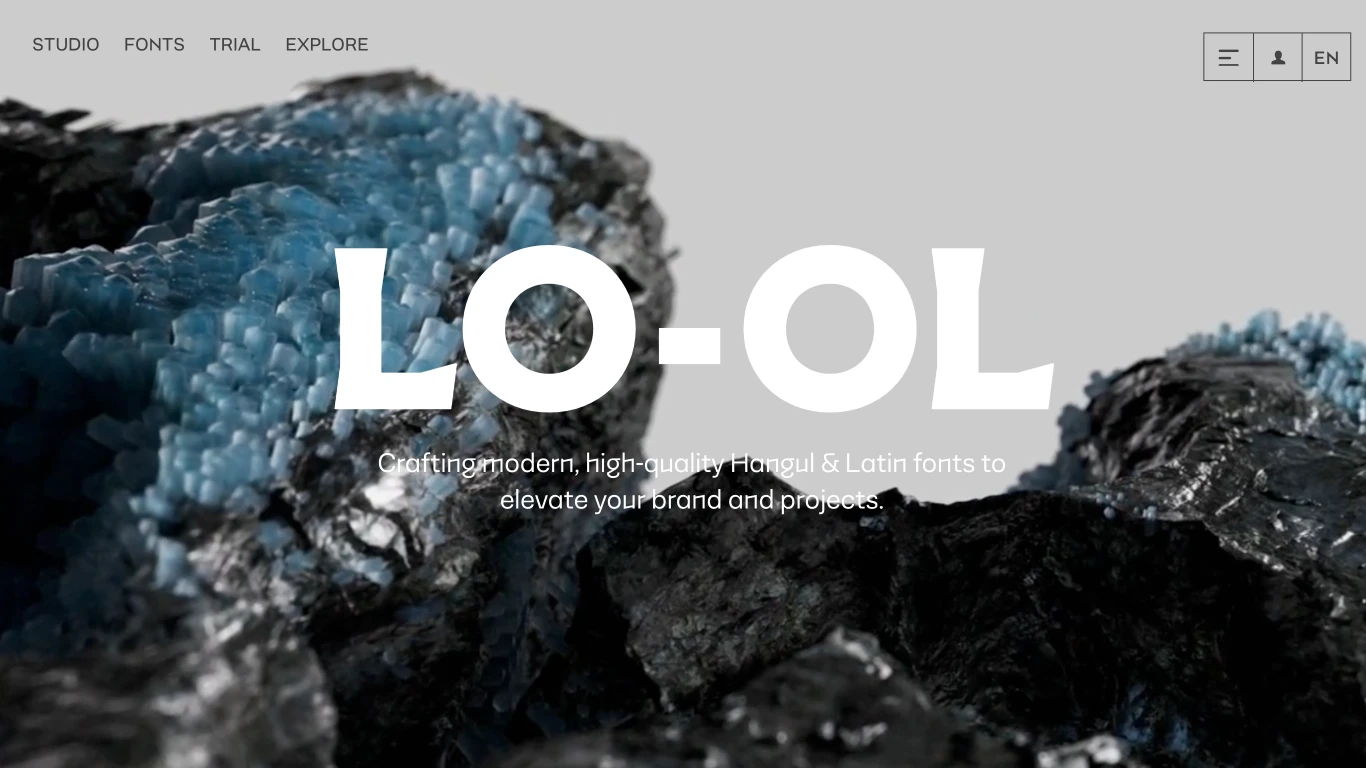
lo-ol is a type foundry and design studio founded by Noheul Lee and Loris Roussel, operating between Geneva, Switzerland, and Seoul, South Korea. Established with a focus on bridging Latin and Hangul typography, lo-ol specializes in crafting original typefaces and custom fonts that blend historical influences with modern design sensibilities. lo-ol has collaborated on custom typefaces for brands such as Hyundai Department Store ("Happiness Sans") and Naver ("Maru Buri" Latin), working alongside the AG Typography Institute. Notable typefaces from lo-ol include Kronik Antik, Kronik Vision, Ortank, Ortank Hangeul, Fuzar, Medley, Lemanic, Giparan, Arvana, Superheat, and Oni, each offering unique styles ranging from geometric sans-serifs to display and modern serif designs.